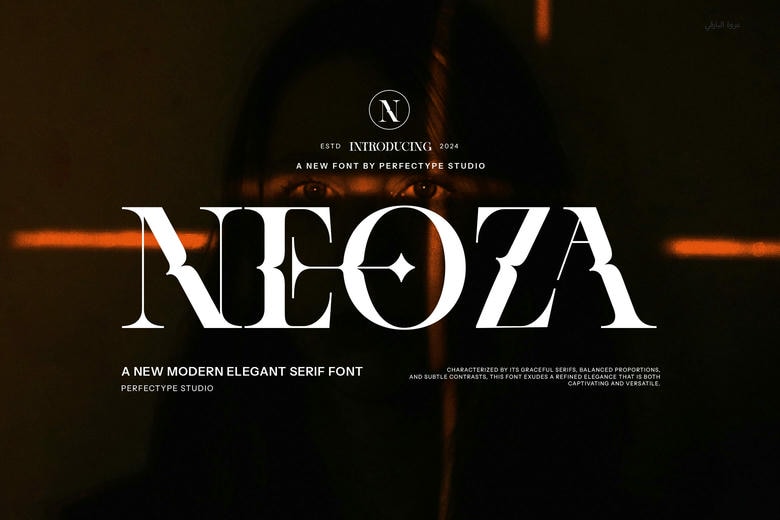
Neoza Font
Neoza is a stylish elegant serif with roundish shapes, at the end of the curves one will find fine lines finishing it. It has a very clean and professional appearance which will be great for formal invitation, textbooks as well as for branding purposes. It is very readable and gives a little bit of elegance to any design element.
Neoza Serif Font